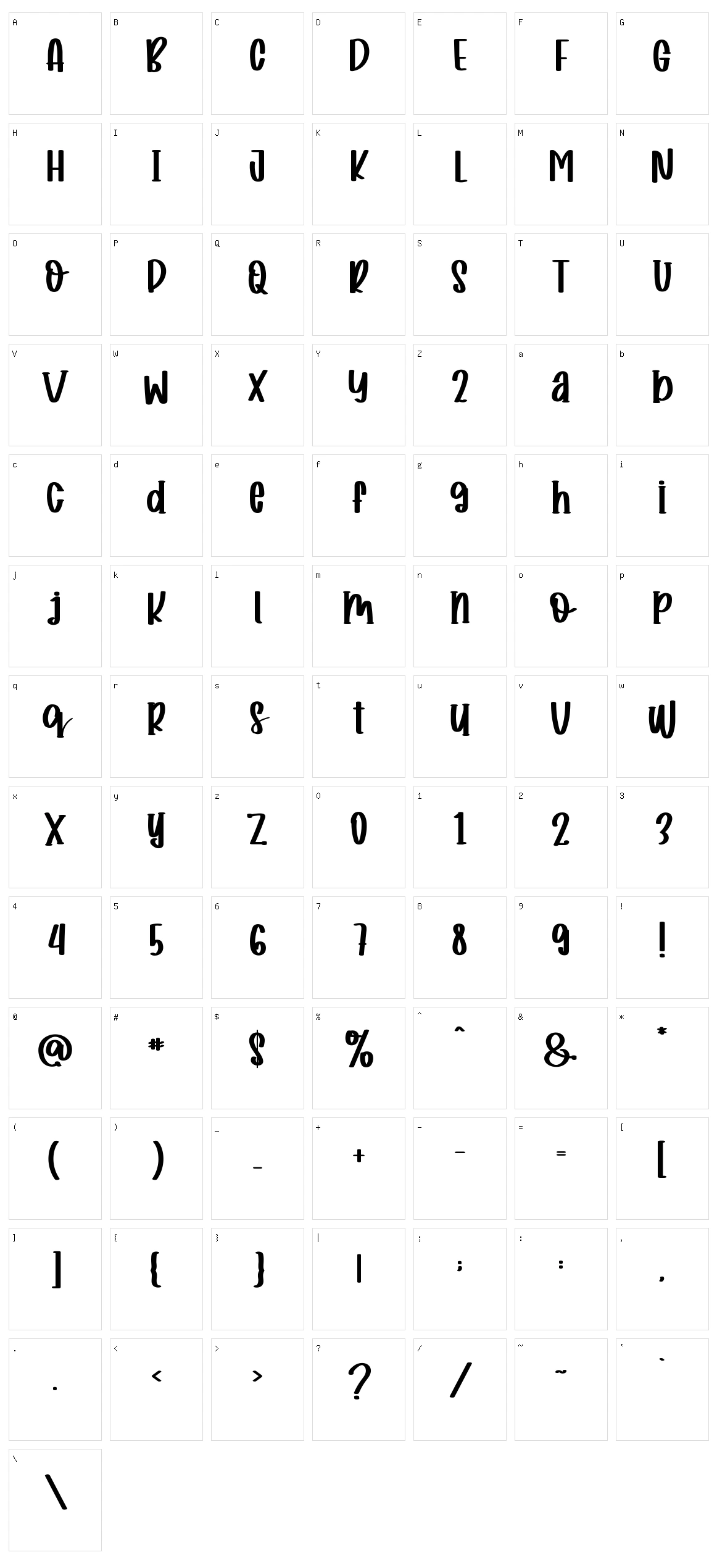
The free font Sweett And Cheerful is carefully designed by Inermedia Studio, showcasing a thoughtful balance of creativity and usability and falls under the Cartoon font style. When you download the ZIP file, it contains only 129.5 KB of font files, making it lightweight and quick to download. Please review the license details below to understand permitted usage and distribution rights. If license information is not available, we recommend using this font for personal projects only or contacting the author directly for commercial usage permissions.